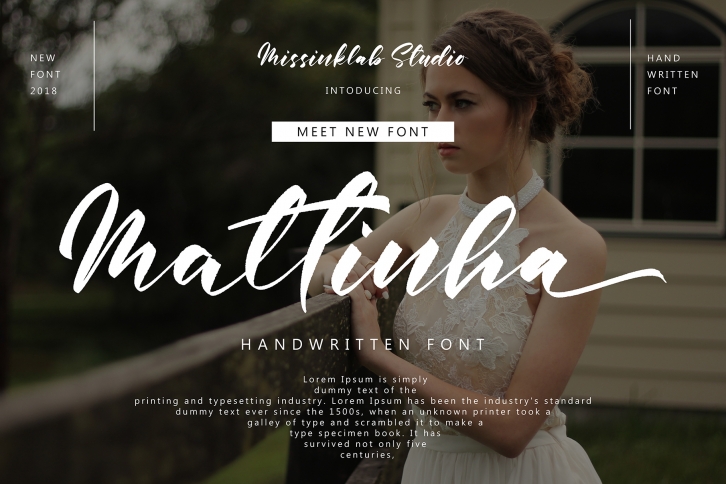
Mattinha is a beautiful font that was designed by Pineungtype. It's a great choice for designers and creatives who need such a font. It was released on March 13, 2019 and the file size is 14.83 MB. Mattinha may give a more youthful, expressive and casual look to your project. It is a very beautiful, refined, elegant, and high-quality font.